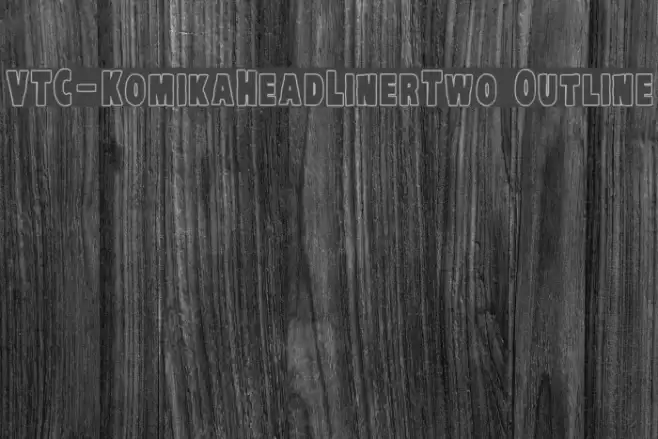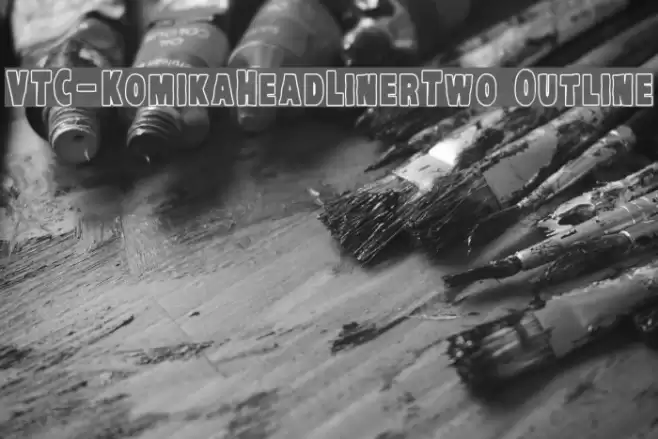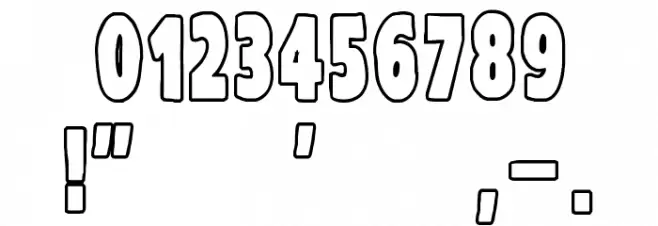
VTC-KomikaHeadLinerTwo Outline Font
VTC-KomikaHeadLinerTwo Outline Description
This font features bold, playful characters with a distinct outline style, creating a cartoonish and lively appearance. The uppercase letters are prominent and eye-catching, making them ideal for headlines or titles. The numbers and special characters maintain the same playful and bold aesthetic, ensuring consistency across all text elements. The font's design is reminiscent of comic book lettering, with a fun and informal vibe that adds a sense of whimsy to any project.
A bold, outlined font with a playful, comic book style from Uncategorized fonts.
- Proposed Projects: Ideal for comic books, children's books, playful posters, and eye-catching headlines.
- Overall Style: Playful, Comic